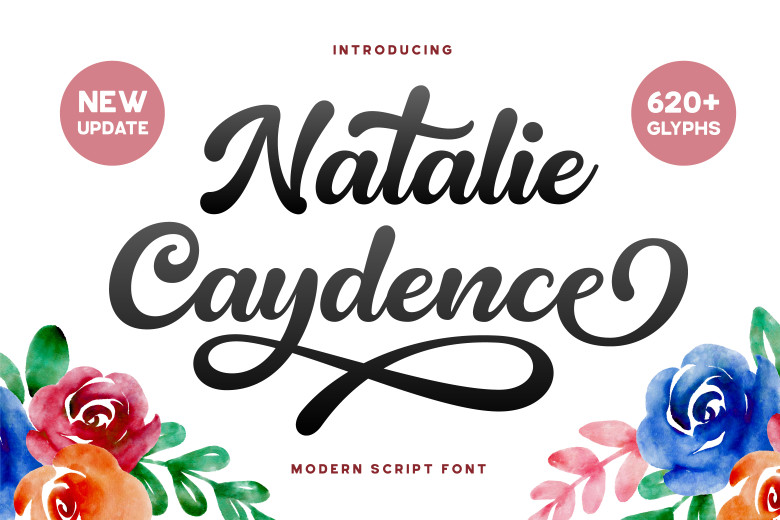
Natalie Caydence Font
Natalie Caydence is another classy Font that is bold in structure, with calligraphy, and cursive scripts-font type. This is very lovely to be used for weddings, thank you cards, auspicious quotes, cards, emblem, labels, and any design that needs a cursive form.
Natalie Caydence Calligraphy Script Font